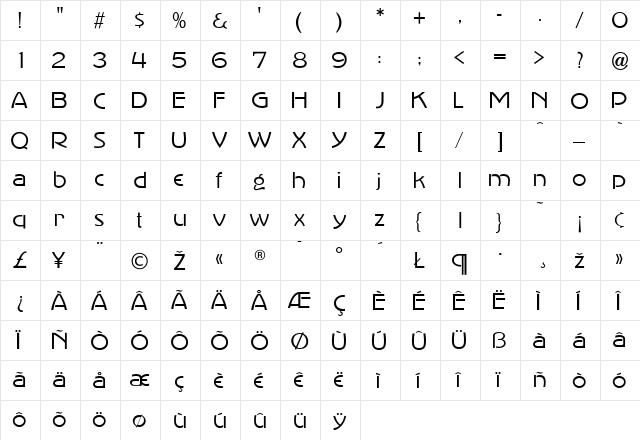
AdvertisersGothicLight Regular Font Preview
AdvertisersGothicLight Regular
Design Context for AdvertisersGothicLight Typeface
AdvertisersGothicLight has the quiet confidence of well-executed sans-serif typography: versatile, unobtrusive, and dependable at any size. Its slender proportions lend an understated elegance to any composition.
Ideal for fashion and beauty branding, minimal editorial layouts, and premium digital experiences.
Font Pairing: Pair AdvertisersGothicLight with a medium or bold serif for headlines — the weight contrast creates an elegant, high-end feel.
Pro Tip: Avoid using AdvertisersGothicLight at very small sizes where its slender strokes can disappear. It performs best at medium to large sizes.